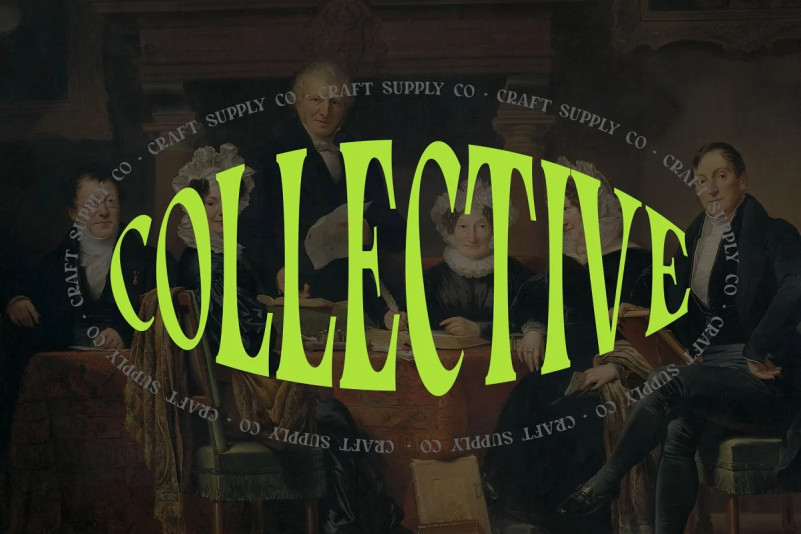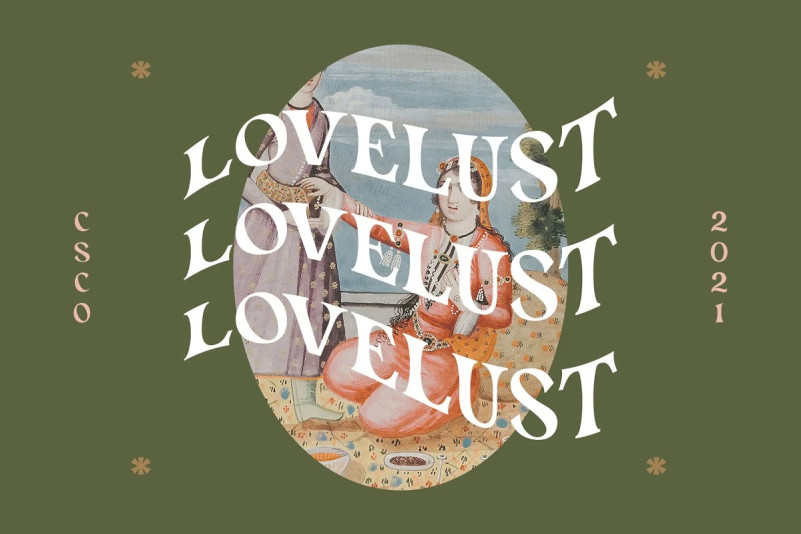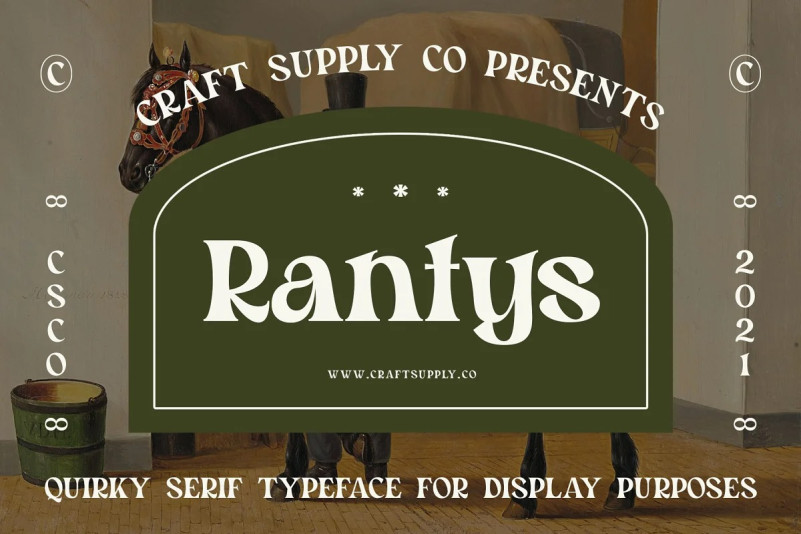
Rantys Font
Rantys Font – Quirky Serif Typeface is a quirky display font combines thick and thin strokes, oldskool serif, and weird tweak. It can be used to create almost all types of design projects like print materials. Just use your imagination and your project will become more alive and look great than ever with this typeface.
You want to make a greeting card or a package design, or even a brand identity, craft design, any DIY project, book title, wedding font, pop vintage design, retro design or any purpose to make your art / design project look pretty and trendy? Feel free to play with this typeface!